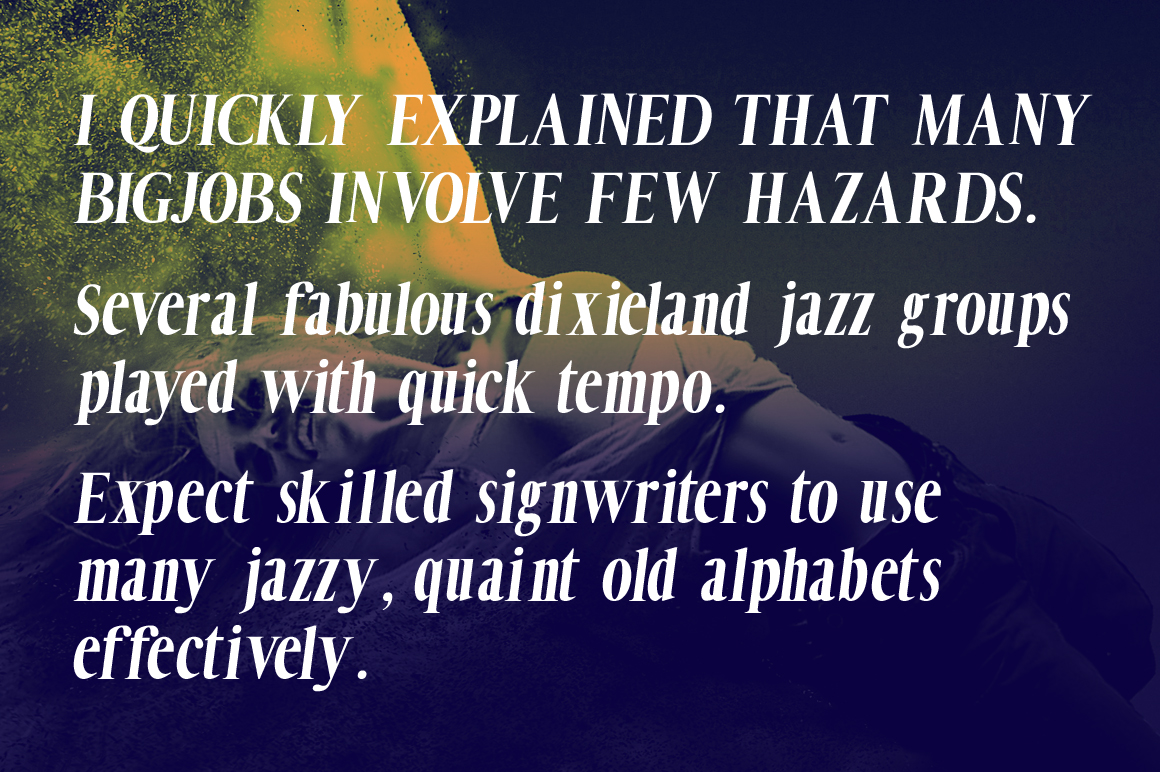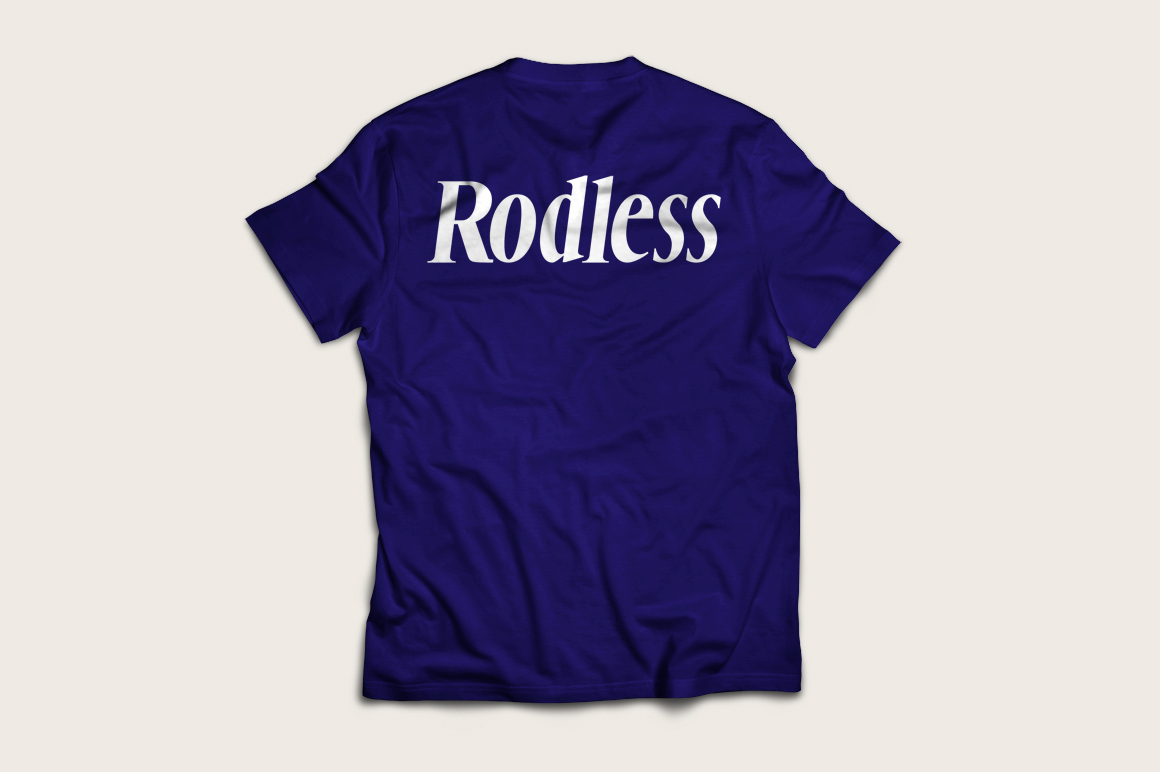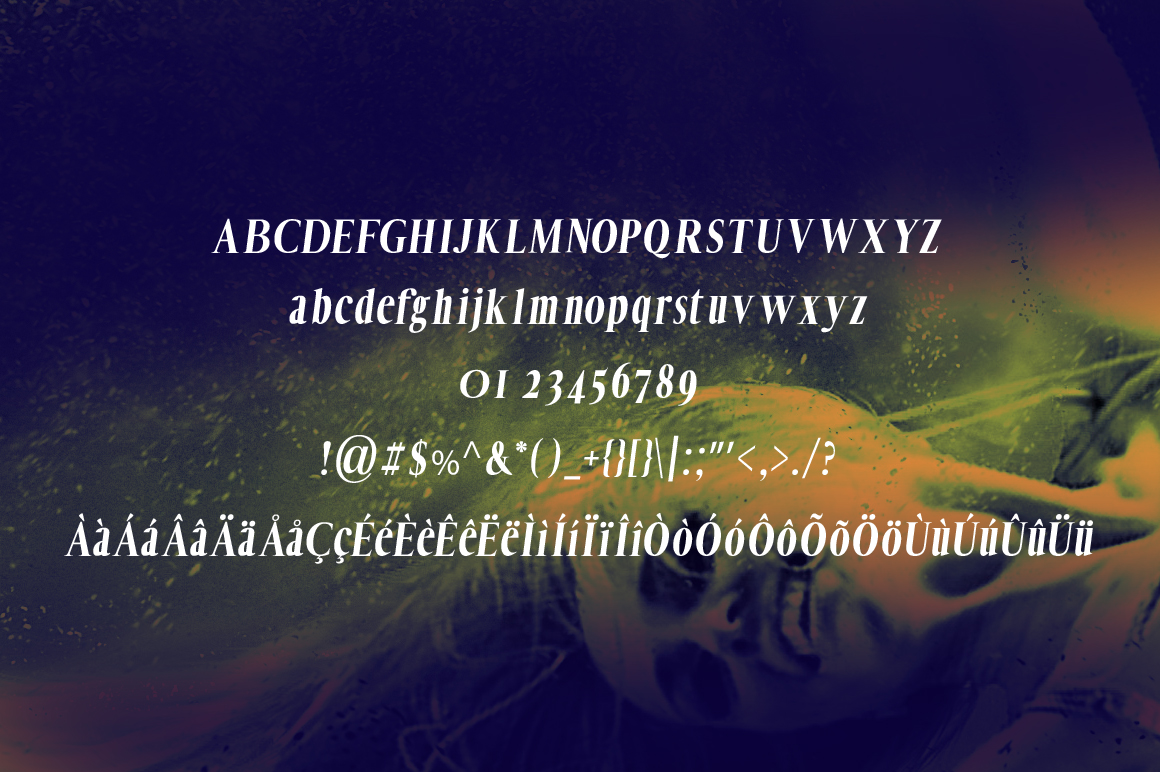
Introduction to Rodless Font
Have you ever stared at a blank page, trying to bring a creative project to life but struggling to find the perfect font? We’ve all been there. As designers, we know that the right font can make all the difference in conveying our message and setting the tone for our audience. That’s why we’re excited to introduce you to the Rodless Font, a modern, bold serif font that’s sure to elevate your designs.
With its sleek and sophisticated design, the Rodless Font is perfect for designers who want to add a touch of elegance to their creative projects. Whether you’re working on a branding project, creating a website, or designing a brochure, this font is a valuable resource that’s sure to help you achieve your design goals. And the best part? You can download it for free, complete with a transparent background, making it easy to integrate into your design.
Key Features of Rodless Font
- High-quality design resource with a unique, modern aesthetic
- Perfect for creative projects, including graphic design, digital art, and typography
- Unique rodless design element, allowing for creative and innovative typography solutions
Honest Review: Rodless Font
I recently came across the Rodless Font, and I must say it’s been a game-changer for my creative projects. With its free download option, I was able to get started right away. The transparent background is a huge plus, making it super easy to customize and combine with other design elements.
What works well for me is the high quality of the font, which makes it perfect for professional-looking designs. The Rodless Font is a great addition to my design resource library, and I appreciate the versatility it offers. Whether I’m working on a logo, business card, or social media graphics, this font never fails to impress.
- ✨ High-quality design that’s perfect for professional projects
- ✨ Transparent background for easy customization
- ✨ Great addition to any design resource library
That being said, I do have a few limitations to note. ⚠️ The font family is relatively small, which can make it a bit more challenging to find the perfect combination of fonts for a specific project. Additionally, the font’s versatility can also be a double-edged sword – it may take some experimentation to find the right balance between style and legibility.
Overall, I’m thoroughly impressed with the Rodless Font. Its high quality, versatility, and free download option make it an excellent addition to any designer’s toolkit. While it may have some limitations, the benefits far outweigh the drawbacks, making it a must-have for any creative project.
Getting the Most Out of Rodless Font
To get the most out of Rodless Font, use it in conjunction with other design elements, such as images and graphics. You can also experiment with different font sizes, colors, and styles to create a unique design.
The Rodless Font is suitable for various design projects, including:
- Posters and banners
- Website design and development
Alternatives to Rodless Font
Comic Sans MS is a sans-serif font designed by Vincent Connare in 1994. It is often used in creative projects and is known for its friendly and approachable tone. Comic Sans MS is a great alternative to Rodless Font when you need a font with a more casual feel.
Comparison: While Rodless Font is more versatile and can be used for a wide range of designs, Comic Sans MS is more suitable for projects that require a playful and humorous tone.
Great Vibes is a modern script font designed by Laurence Penney in 2012. It is a high-quality design resource that is perfect for creative projects that require a touch of elegance and sophistication. Great Vibes is a great alternative to Rodless Font when you need a font with a more refined and sophisticated look.